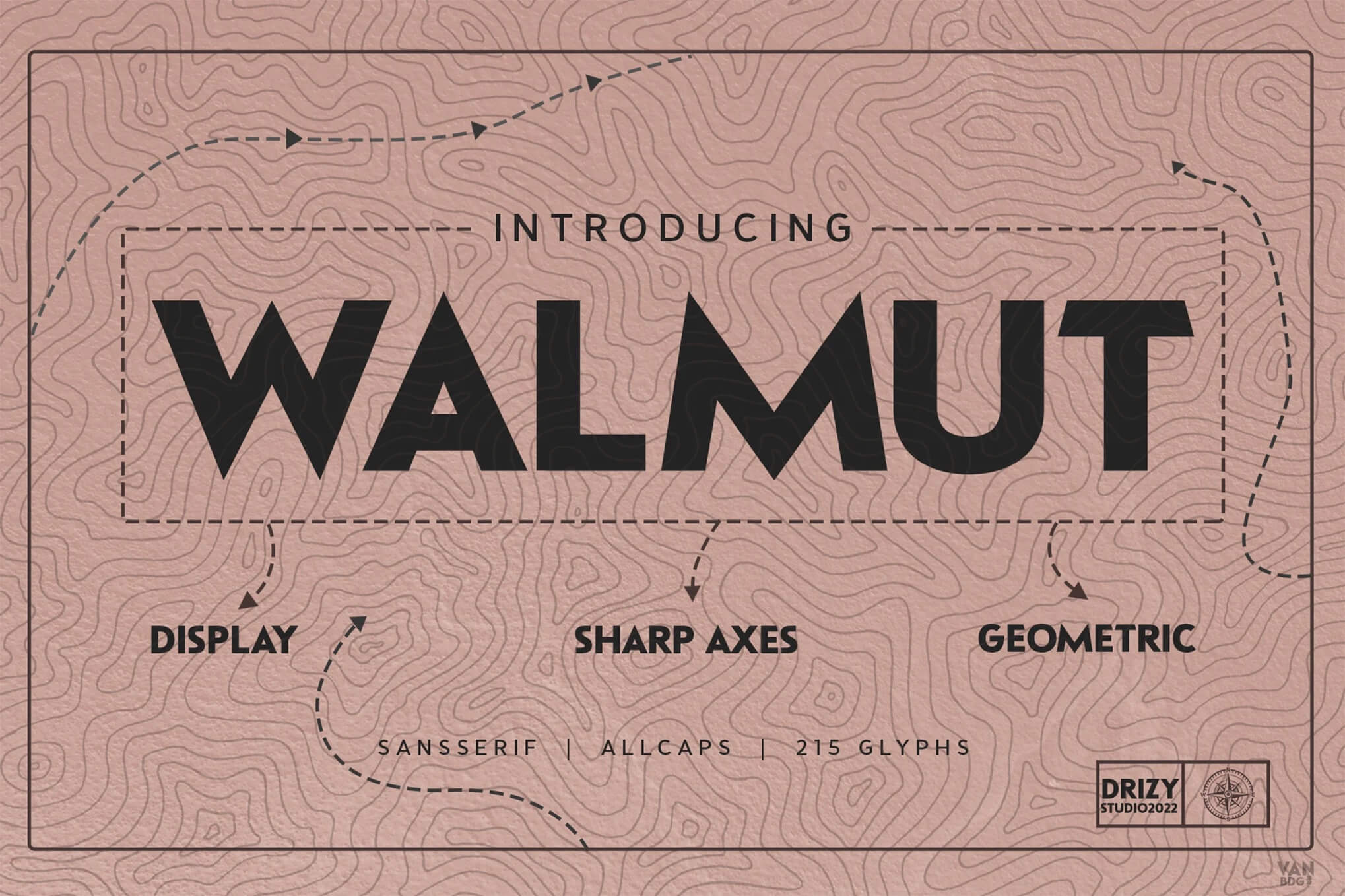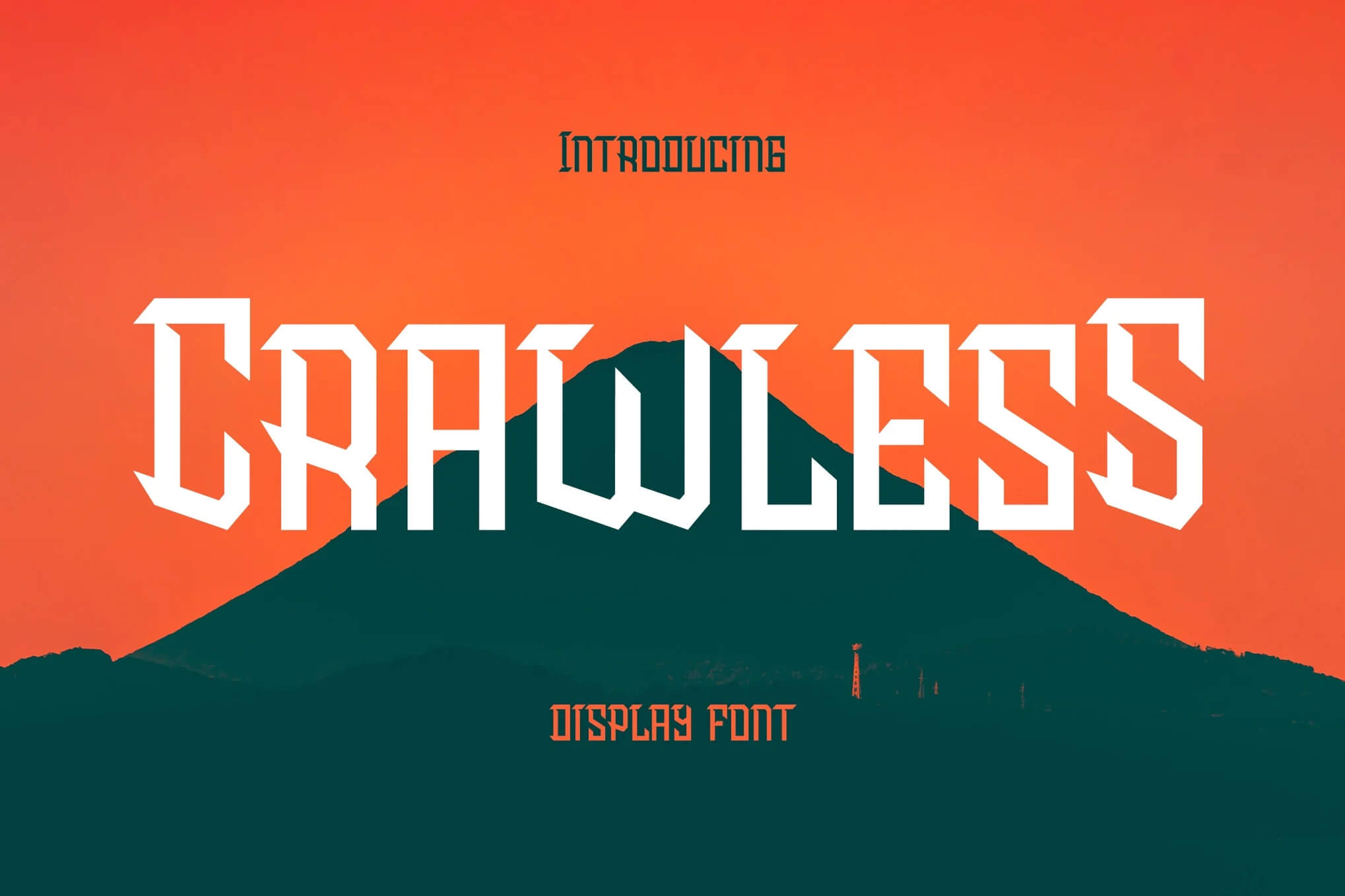
13+ Fonts with Sharp Edges
If you love a font that feels crisp and cuts through the noise, you are in the right place. Sharp fonts have a certain attitude. They feel intentional, confident, and a little bit edgy.
In this guide, I want to walk you through the world of sharp-edged fonts and help you choose the perfect font for your next creative project. Whether you want something free, bold, or modern, you will find what you need here.
Before we dive in, here is why this article is worth reading. Sharp-edged fonts can elevate your brand instantly, but only if you use them well.
Promotional graphic highlighting "13+ Fonts" with a bold, modern design featuring sharp edges for high-impact visual appeal against a dark geometric background.
I have spent years trying different fonts, pairing them with serif and sans serif fonts, testing them in real client work, and seeing where they shine.
Consider this your shortcut to finding the best sharp style typefaces without digging through endless lists of fonts like 1001 Fonts or downloading random files you never end up using.
Top Sharp-Edged Fonts to Cut Through the Noise
Blade Recoil – Futuristic Bold Fonts
Futuristic poster design with bold pink text "Blade Recoil" on a speckled black background. Features swirls, stars, and a retro aesthetic.
Blade Recoil feels like it just stepped out of a sci fi universe. It’s bold, boxy, and full of attitude, perfect for designs that need to grab attention. Every letter looks sharp and confident, giving your project a strong futuristic edge.
Walmut – Geometric Font
Promotional image for the "WALMUT" sans-serif font by Drizy Studio. Features descriptors: display, sharp axes, geometric, all-caps with 215 glyphs.
Walmut has that clean geometric vibe that instantly grabs attention. It feels bold, modern, and super structured without losing its friendly edge. Perfect for projects that need a confident look with a touch of creative sharpness. I love its balanced simplicity.
Brema
Bold, colorful text advertises "Brema" font by Drizy Studio, featuring stencil, sharp, display, and geometric styles. Includes OpenType features and ligatures.
Brema has that bold geometric vibe that instantly grabs attention. It feels clean but still playful, perfect for projects that need a modern twist without losing personality. The sharp lines and stencil touches make it look stylish and full of energy.
Fright Night
A dark forest scene with red text "FRIGHT NIGHT" above a silhouetted person walking among tall trees. Eerie and mysterious atmosphere.
Fright Night has that perfect mix of eerie and elegant. The sharp edges and bold curves instantly pull you into a spooky mood. It feels cinematic, like the title of a classic horror film, and would look amazing on posters or Halloween designs.
Crawless – Display Font
Bold text reads "Crawless" on an orange and dark silhouette mountain background, promoting a display font design.
Crawless has that bold, futuristic vibe that instantly grabs attention. It feels sharp, confident, and a little edgy, perfect for anything from gaming logos to fashion branding. I love how it mixes modern tech energy with a clean, stylish finish that really stands out.
Fortusnova – Futuristic Display Font
Text reveals "Fortus Nova," a futuristic modern inktrap sans font, against a cosmic background, emphasizing its universal design appeal.
Fortusnova feels like a bold step into the future. Its sharp ink trap details and clean lines make every letter look sleek and confident. Perfect for modern designs that need a strong, tech-inspired vibe with just the right touch of creativity.
Marcost – Tato Typeface
Vintage-style text showcasing the words "Vintage Marcost Tato Typeface" with ornate lettering on a distressed dark background.
Marcost Tato Typeface has that bold vintage charm that instantly grabs attention. It feels strong and confident yet stylish enough for modern projects. Perfect for logos, posters, or headlines, it gives your design a touch of personality with a clean, classic vibe.
Scary Things – Sharp & Creepy Serif
Text reads: "Proudly Present Scary Things Clean & Sharp Serif Saridezra" in bold red and white letters on a dark background.
Scary Things has that perfect mix of clean and creepy. The sharp edges give it a bold, chilling vibe that instantly grabs attention. It’s ideal for horror posters, Halloween designs, or anything that needs a touch of eerie sophistication.
What makes a sharp font feel so bold and modern
The sharp edges of a font speak for the whole design. With precise corners and clean lines, sharp fonts even bore deep into our subconscious. Sharp-edged fonts make a whole design appear more confident.
The first time I used this type of font for a customer who wanted something strong and bold, the whole layout fell together. It was no longer tepid in nature. It lent structure.
This is the power of a font that has been made with a clear sense of clarity. Compare them to fonts with round or soft corners. Those fonts look modern, unique, and ready to step forward.
This is more than just an ornamental font. It is a tool for design. As long as you think carefully about it, you’ll be able to use this sharp style for anything from posters or websites and more.
How do sharp edges change the mood of your typography
The emotion conveyed by a piece of typography is more important than its practicality.
That might sound trivial, but consider something as simple as changing from an archaic letterform to Helvetica in your personal correspondence. No longer can you be sure how your subtle message will be taken!
The clear, sharp-edged form of letters is often a source of attraction for readers. Moreover, they produce no astringent, hard effect. That’s, in fact, what makes them attractive.
Sharp typefaces make people stop for a second. The letters are easy to see. They just grab your attention without being loud.
That’s what makes them so elegant. When I’m working on a project that requires structure or power, I always reach for typefaces with sharp edges. The lines feel straight and clean. The letter shapes are precise.
Even a free, sharp font can give off the impression of direction. That’s why so many designers use sharp style typefaces when they want a mood that is edgy and polished at the same time.
Are sharp fonts better for logos or body text
Sharp type is totally fit for a logo because of its clarity and legibility, which can make your brand feel strong.
When it comes to sportswear, you naturally should use power that has a shape and feel of its own, like the Adidas sharp font! And if you want your brand to feel modern or tech, use a light logo design.
But for body text, well, it varies. Some sharp fonts are too contrived for long reading. Others are well designed and remain readable.
A variable font with several sharp weights can help you get the right balance. I usually use a sharp font for headings, and then pair it with calm sans serifs for paragraph text. This way the design has character and hierarchy for both fonts.
What is the difference between serif and sans-serif sharp style fonts?
The serifs in serif fonts and the ends of strokes in sans-serif typefaces both give type an impression of sharpness.
The only thing that differs is how this is expressed. For a serif font, sharpness might be reflected in its tiny little hooks and edges.
A sans serif font can be more geometrical and portray sharp lines. Both are beautiful or appropriate for your project, depending on the feelings you want to evoke.
If you want something more classic yet still original, use a serif. If you want something cutting-edge and minimalist, the sans-serif sharp style is better suited.
For branding work, I have done both. A serif-sharpened font makes a luxury brand timeless. But the counterpart is that something tech-y or creative feels fresh and cutting-edge with a sharp sans-serif.
Think of it as choosing between a tailor-made suit and an old leather jacket, they’re both stylish. Just with different personalities.
How do bold, sharp letters work in geometric designs
Geometric layouts calls for something solid, though the uniform pattern of letters may have sweat rolling down your face.
Here the clean shapes are repeated, one after another. Precise lines never pause: purposefully or not, they skip along musically in dribs and drabs.
Geometric fonts are often used in packaging and other graphical design settings because their bold, clear appearance suggests an air of precision.
Take the first example above: When you match a geometric pattern with sharply drawn fonts like these, each helps to reinforce the other.
Typography becomes part-structure instead of simply ornamentation, but also takes on an entirely new quality; working with this type of font always seems easy and potent at once. In this age of sharp-edged fonts, it has become one of my favorites.
When should you use sharp-edged display typefaces?
Display typefaces are meant to be seen; their strength lies in long lines and large sizes.
Corner, serif half-line, subdivision word a typeface to contributed a by comparison In designing a poster, a logo or web site hero header, or on product packaging.
A crisp display font can help you make something unforgettable.
The energy and clarity that sharp-edge fonts can lend in display settings make them hard to ignore.
All you might not use them for long paragraphs, they absolutely should be considered when you want to have an impact.
They work particularly well in modern branding, fashion layouts, tech designs, and creative portfolios.
How do you choose the perfect sharp style font for your brand
Choosing a typeface is often like finding a personality for your brand. It should be flexible enough for different kinds of applications and yet still able to imprint itself on the mind.
When I choose a sharp font for branding, I study the letter forms closely. Are they in harmony with the image and perception the brand seeks to convey. Are they overly earnest or too harshly distinctive in tone.
Sometimes a free, sharp font works very well. At other times I opt for a professional typeface because the craftsmanship deserves it.
Consider where the font will be used. On a business card. On a company logo. Make sure sharpness does not muddle the message or simply obscure it.
Should fonts with rounded corners be mixed with sharp ones
A headlined carefully coupled with a round body font feels impeccably right. I’ve done this often enough, when a company needs structure and warmth, yet it never fails to surprise me.
That typography isn’t a single note you can get harmony by mixing opposites thoughtfully. Just make sure that the styles don’t conflict with one another. Trust your eye. You will know it when it is right.